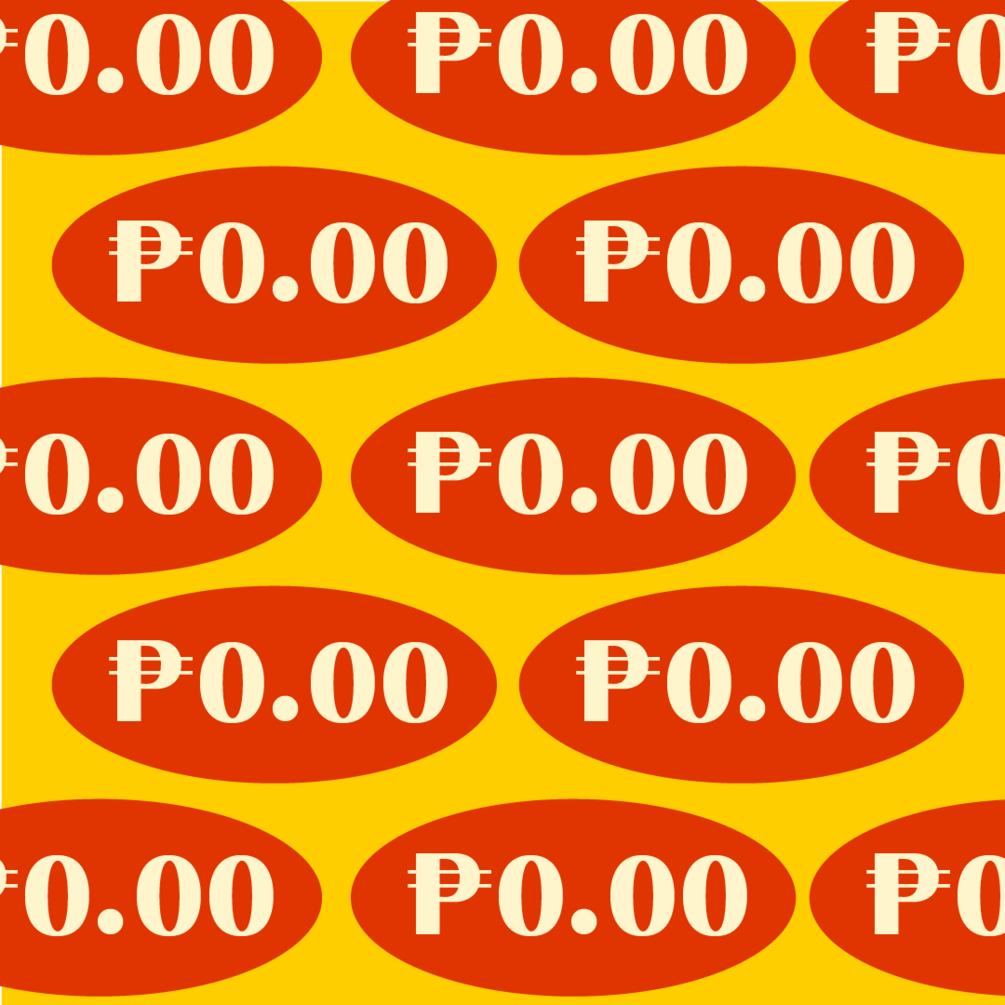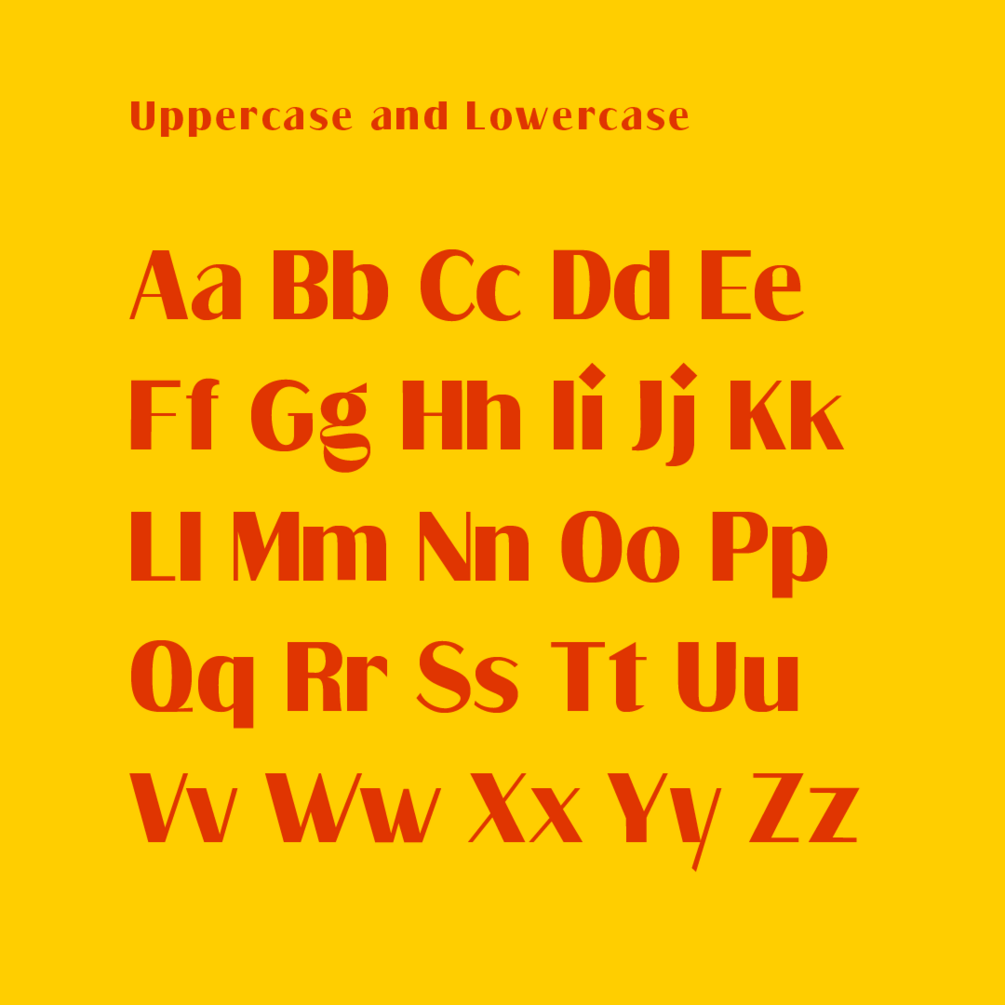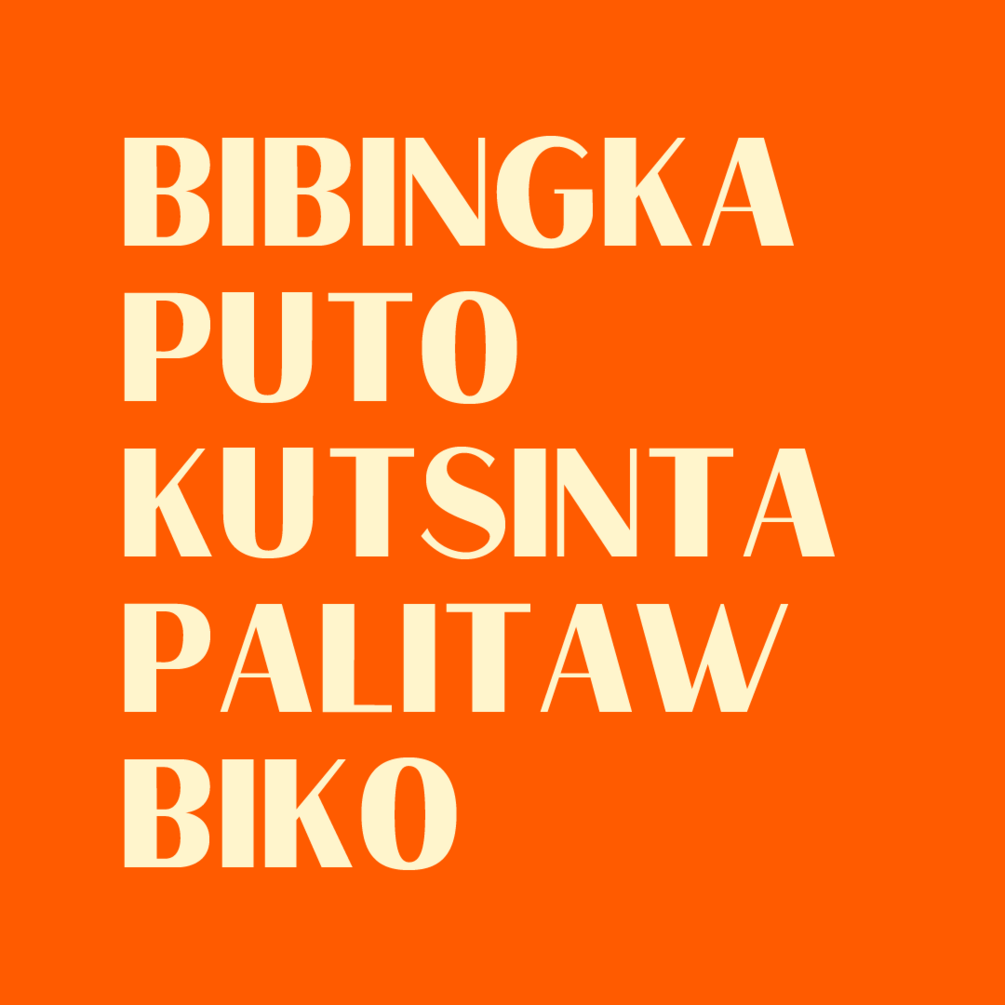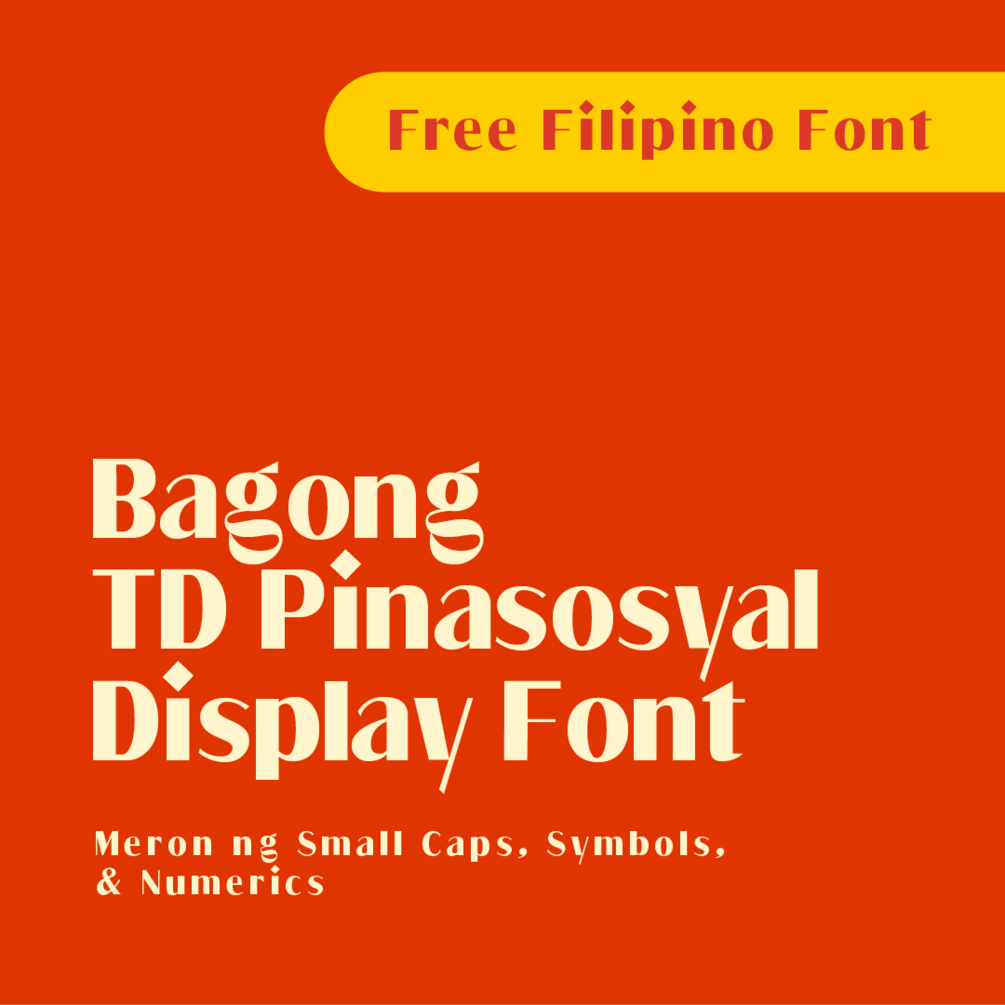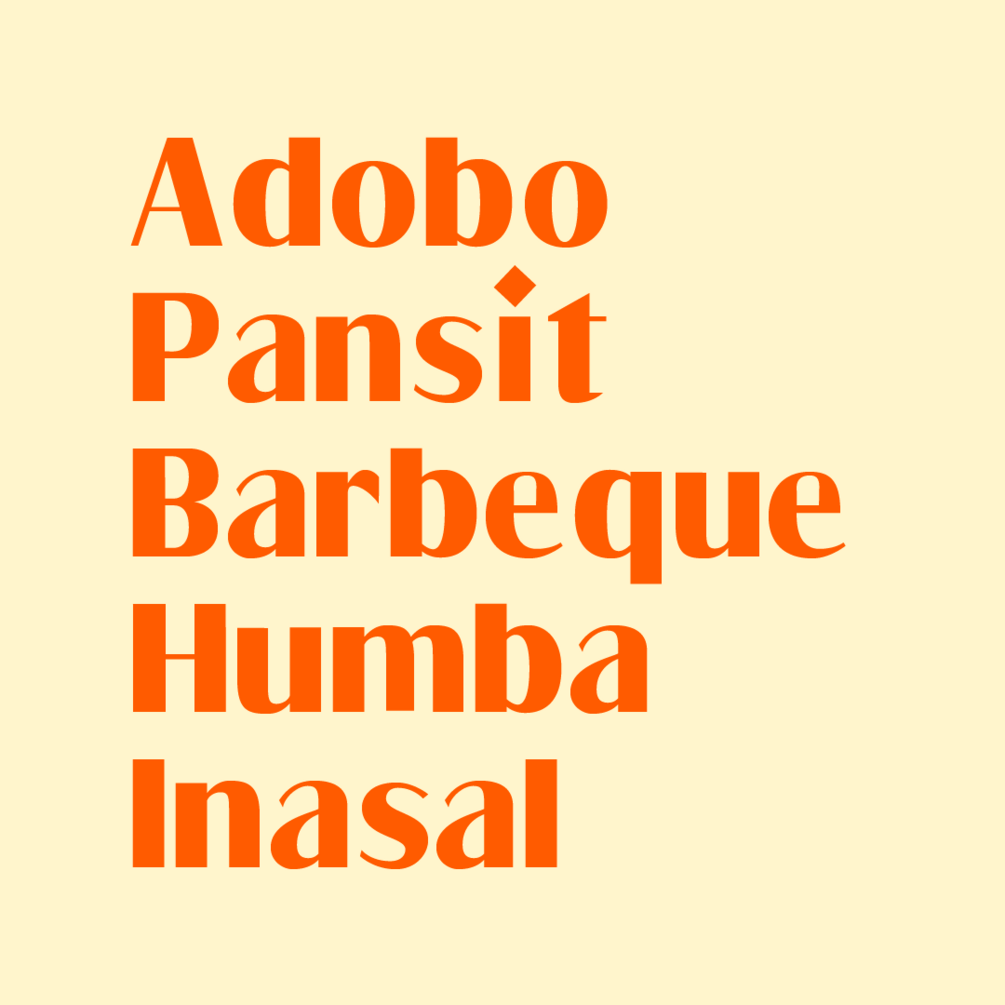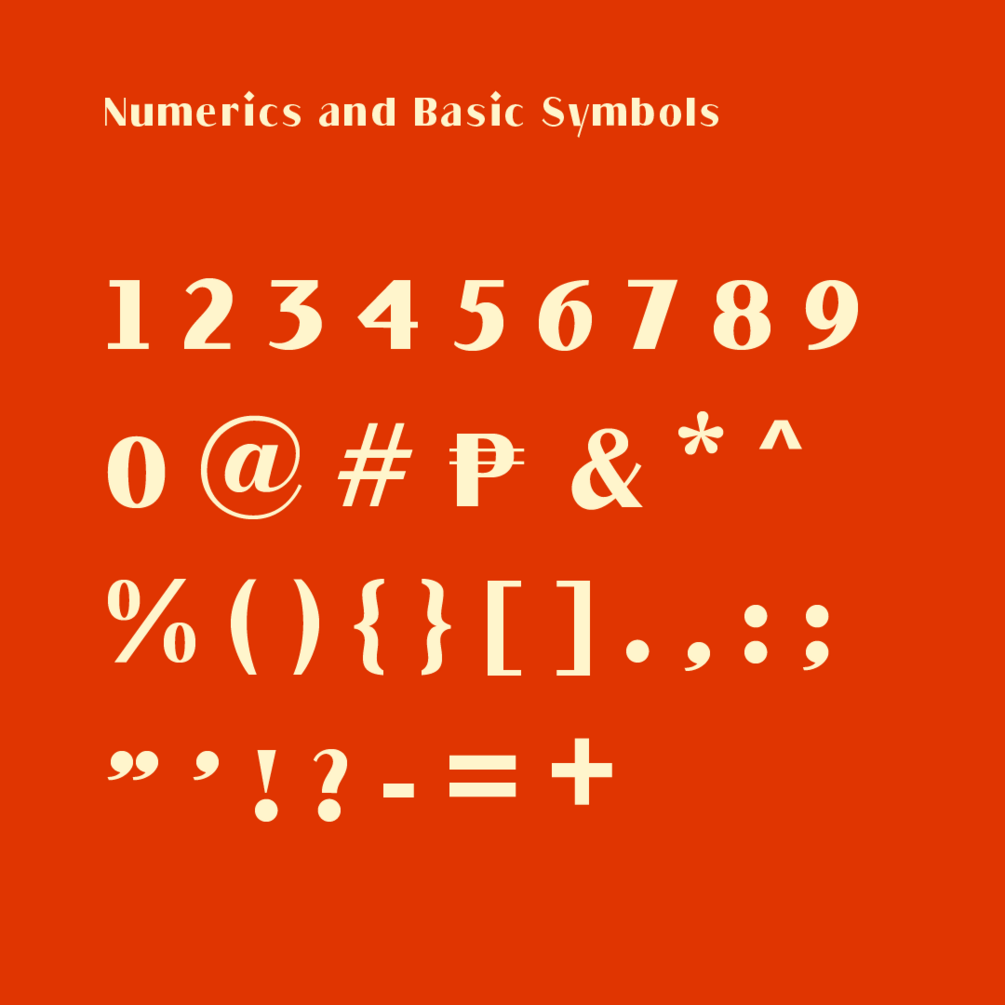
TD Pinasosyal Font
Pinasosyal display type is derived from the words 'Pinas' and 'Sosyal.' Each letter is purposefully designed to resemble high-end food. Filipino cuisine is renowned for its flavorful dishes and has a rich history of delicacies. The problem we solved was to provide letterforms that reflected what we were selling to enhance the appetites of our visitors from all over the world.